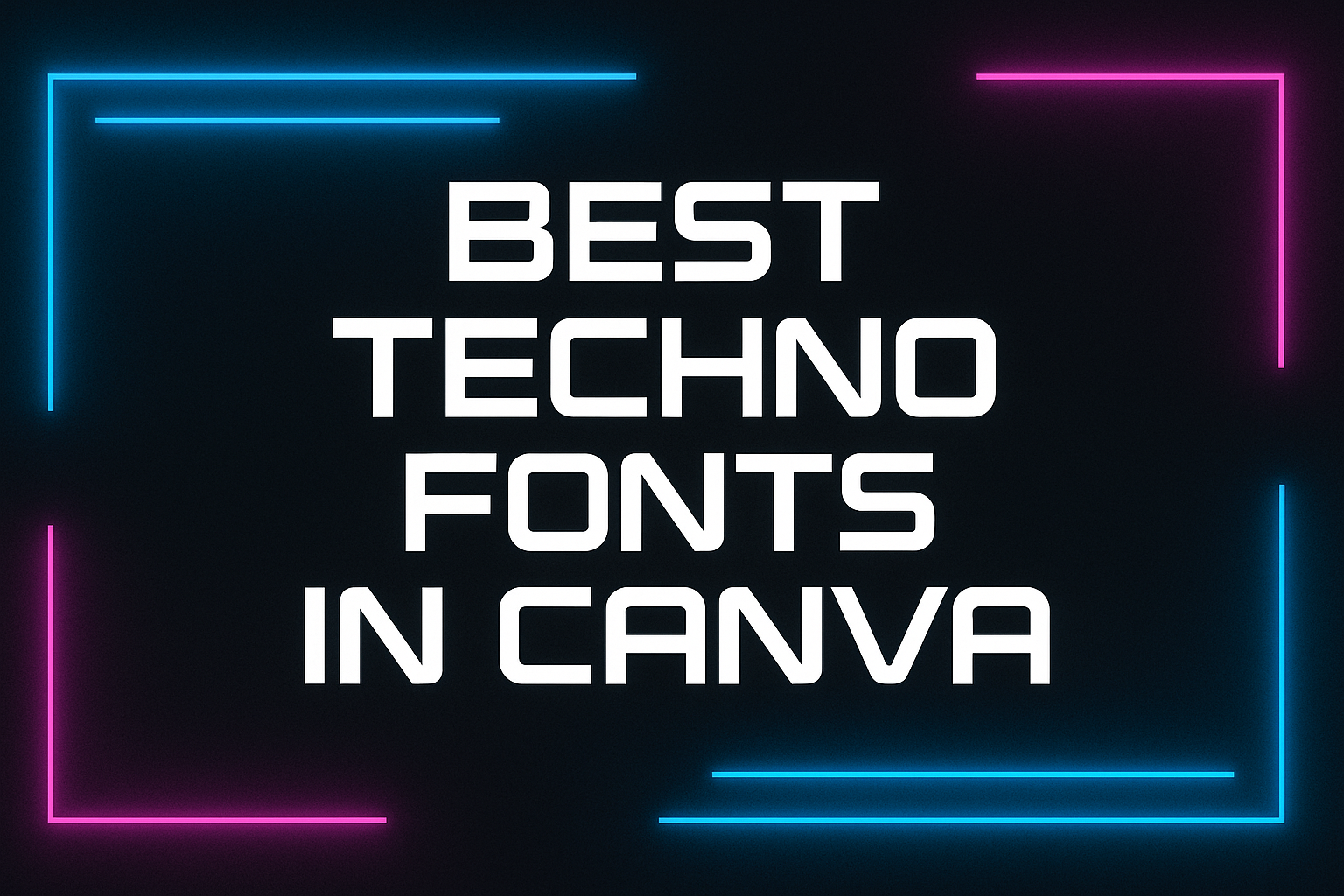
Techno fonts are essential for anyone looking to create modern and stylish designs in Canva. These fonts often mix sharp lines with futuristic elements, providing a clean yet advanced look that is perfect for tech-related projects.
Blanka, known for its minimalist design and geometric touch, is a top choice for its clarity and versatility, especially in branding and web design.
Luciana stands out with its monospaced style, showcasing elegant strokes that add a dynamic feel. It’s perfect for those wanting to blend a touch of sophistication with modern design.
Adriana offers a unique twist with its script-like characters, combining elegance with future-forward aesthetics. These fonts bring a new level of creativity to any designer’s toolkit.
For sci-fi enthusiasts and tech lovers alike, incorporating these fonts can turn ordinary visuals into compelling works of art. The right font choice can transform everything from logos to editorial content, providing both readability and a modern edge.
By exploring these fonts in Canva, creators can easily add a futuristic touch to their projects.
Understanding Canva’s Font Library
Canva’s font library is a treasure trove of typography options that cater to various design needs. It offers a wide array of styles, from modern sans-serif to decorative script fonts.
The Role of Typography in Design
Typography is a core component of any design, affecting how information is perceived. In Canva, fonts add character and set the tone of your project. They influence readability and audience engagement.
For example, a bold, futuristic font might work well for tech-related projects, while a handwritten script could add warmth to invitations.
Choosing fonts wisely is essential. Blending fonts, like pairing a sans-serif with a serif, can create visual harmony. Canva’s library supports these combinations, enabling designers to create balanced, appealing visuals.
The right font choice brings unity and coherence to any given project.
An Overview of Font Categories
Canva organizes fonts into categories to make selection easier.
Sans-serif fonts, known for their clean lines, are great for modern and minimalistic designs. Serif fonts bring a classic touch and are ideal for formal content like reports.
Script fonts mimic handwriting, adding elegance to invitations or personal notes. Meanwhile, display fonts are bold and unique, crafted to grab attention, making them suitable for headlines.
Another category is techno fonts, which are popular for digital and futuristic designs. With options like Blanka and Mokoto Glitch, they cater to dynamic and modern aesthetics.
Criteria for Choosing Techno Fonts
When selecting techno fonts for a project, key factors to consider include readability and how well they fit with other design elements.
Readability and Legibility
A font’s readability is crucial in ensuring that the text is easy to understand at a glance. Techno fonts often have unique shapes and structures, making legibility an important factor. The characters must remain easily distinguishable, even when used in small sizes or from a distance.
Checking how the font appears across different devices and platforms can help determine its readability.
Maintaining a clean and uncluttered look is helpful for legibility. This can be achieved by avoiding overly intricate details that may confuse the reader. While techno fonts are inherently futuristic and stylized, it’s vital to strike a balance between edgy design and text usability.
Compatibility with Design Elements
Choosing techno fonts that blend well with other design aspects is essential for a cohesive look. The font should harmonize with the color scheme, images, and overall theme of the design.
A font that contrasts sharply with other elements can be distracting. Designers often look for fonts that complement the visuals and support the design’s purpose.
Some techno fonts are versatile and work well in various contexts, such as web design, branding, or advertising.
It’s important to test how they interact with different design elements. Designers might use tools like Canvas’s font options to experiment with typography in various settings and ensure everything fits together smoothly.
Top Techno Fonts in Canva
Canva offers a variety of techno fonts for different design needs. From clean and neoteric styles to more bold and impactful options, there are plenty of choices to explore. The following sections cover some of the top techno fonts in each of these categories.
Neoteric and Clean Fonts
Neoteric techno fonts in Canva provide a sleek and modern vibe.
Blanka is a great example with its clean lines and geometric design, creating a minimalist and futuristic look. This font is perfect for website design and tech branding because of its readability and modern feel.
Another choice is Luciana. Its monospaced design and light strokes add a feminine touch, making it ideal for projects needing a softer yet tech-savvy look.
Galactus also stands out for its elegance, offering a refined look suitable for digital content that demands simplicity and style.
Bold and Impactful Selections
Bold fonts make a strong statement and grab attention.
Mokoto Glitch presents itself as a daring option with its digital effects that suggest speed and motion. Such fonts are great for event posters or gaming graphics where striking visuals are key.
Another impactful font is Blackpast Futuristic, which brings a touch of mystery to its bold design. This font works well for sci-fi and tech-themed projects. With its rich and daring style, it commands attention whether used for headers or logos.
Moreover, there is Nebula, known for its unique take on boldness. With a futuristic flair, it injects energy into any design, making it a solid choice for edgy and creative projects.
Futuristic and Abstract Picks
Futuristic fonts push boundaries with inventive designs.
Auranouva catches the eye with its techno-inspired style, perfect for innovative startups or forward-thinking brands. It blends sharp angles and curves, creating a one-of-a-kind look.
Invasible Modern Typeface embraces an abstract touch, combining elegance with an unexpected twist. This font suits designs that seek to intrigue and captivate audiences with its unconventional form.
Additionally, Galactus can also offer an abstract angle, fusing elements of sci-fi with a techno aesthetic. This makes it ideal for captivating those who love imaginative and futuristic themes in their digital projects.
How to Access and Use Techno Fonts in Canva
Accessing and using techno fonts in Canva is easy and can make your design projects stand out. Learn how to explore the Canva editor and customize font choices to suit your creative needs.
Navigating the Canva Editor
In the Canva editor, finding techno fonts involves several simple steps.
First, open a new design project or an existing one. On the left-hand menu, look for the “Text” option and click it. This brings up a variety of text options and a list of available fonts.
To find techno fonts specifically, use the search bar within the font menu. Type keywords like “techno” or “futuristic” to filter the results.
After selecting a font, you can easily adjust it by clicking on the text box and using the top menu settings. These settings allow you to change the font size, color, and alignment, giving you control to match your design’s theme.
The straightforward layout ensures that even beginners can navigate through font options without hassle.
Customizing Your Font Choices
Once a techno font is selected, customization can further enhance its impact.
Canva provides tools to change not only the appearance, but also the style of your font.
Experiment with font weights to make your text bold or italicize for emphasis. You can also adjust letter spacing and line height for better readability and aesthetic appeal.
Adding effects like shadows or gradients can transform the look of your text, making it pop against the background.
These customizations ensure that your design looks professional and unique. Canva’s user-friendly interface allows quick modifications, so designers can spend more time focusing on creativity rather than technical details.
Design Tips for Techno Fonts
When working with techno fonts, it’s important to think about layout balance, color choices, and how to pair fonts so they complement each other. Each part of the design plays a role in making the fonts stand out and look their best.
Balancing Your Layout
Balancing your layout is key to making techno fonts shine. These fonts often have bold, futuristic designs that can dominate a page if not placed thoughtfully.
Use white space to draw attention to important elements and prevent the design from feeling cluttered.
Consider alternating font sizes to create hierarchy. For example, use a large techno font for headings and a smaller, more readable font for body text. This contrast gives clarity to your design.
Grid layouts can help maintain order. They make sure that elements align well, providing a structured look that complements the sharp lines often found in techno fonts.
Color Considerations
Choosing the right colors can make or break your techno font design.
Consider using monochromatic palettes or complementary colors that enhance the futuristic feel. Bright, neon colors or metallic shades are popular choices that fit well with the techno style.
It’s important to maintain good contrast between the text and the background. This not only ensures readability but also highlights the text effectively. For example, a bright cyan font on a dark background can create a striking visual impression.
Consider the audience and purpose of your design to select colors that convey the right mood. For a tech-themed event, opt for vibrant and energetic colors. For something more elegant, metallic and cool tones can add sophistication.
Pairing Fonts Effectively
Pairing fonts effectively means choosing fonts that complement each other without competing for attention. Techno fonts are already attention-grabbing, so the secondary font should be simple.
Sans-serif fonts are a great match because they keep the focus on the techno font’s unique features.
Try pairing bold techno fonts with lighter, simpler fonts for body text. This contrast helps maintain readability while showcasing the main font.
Think about the tone of the project. If your project aims for a futuristic look, the secondary font should be modern without being flashy. This ensures that all elements work together seamlessly.
Incorporating Branding with Techno Fonts
Techno fonts add a modern touch to any design, making them a great choice for branding. They can convey innovation and forward-thinking, crucial for tech companies or futuristic brands.
Blanka is a popular techno font that is both clean and minimalist. Its geometric design works well for digital identities, making it suitable for branding projects.
Using different weights of a techno font like bold or light helps to highlight different parts of the message. This approach is effective in creating visual interest and focusing attention where needed.
A list of possible ways to incorporate techno fonts in branding includes:
- Logo Design: Establish an identity with a unique and modern logo.
- Business Cards: Stand out with sleek, techno-inspired contact details.
- Website Headers: Grab attention with stylish headings.
Techno fonts can also be a good fit in various industries. For instance, in the gaming world, they highlight excitement and technology. Futuristic Canva fonts enhance the sci-fi theme commonly seen in creative projects.
Choosing the right font is crucial. As noted on Goofy Designer, adapting a font to match the project’s theme ensures the design looks coherent and professional. Brands wanting a digital edge should consider the message their font choice communicates.
Examples of Successful Designs Using Techno Fonts
Techno fonts bring a modern and edgy feel to designs.
One successful example is using these fonts in logo design. Brands looking for a futuristic image often choose techno styles for their logos. This can give a sleek and innovative look that stands out.
For website headers, techno fonts are popular to attract visitors. They add a high-tech vibe that matches well with digital themes.
It’s common to see these fonts used in tech or sci-fi related sites.
Event posters also benefit from techno fonts. A music festival, for example, might use a bold, geometric font to create a sense of excitement and movement. This makes the event feel modern and appealing to a younger audience.
Another area where techno fonts shine is in advertisements for tech products. They can emphasize the cutting-edge features of gadgets like smartphones or laptops. A well-chosen font can make the product seem more futuristic and desirable.
Canva’s collection of techno fonts includes geometric and minimalist designs, which have been successfully used in multiple branding projects.
Using these fonts thoughtfully can enhance a brand’s digital identity and make it memorable.
For brands aiming to appear modern and innovative, techno fonts are a great choice. They successfully blend style with function, making them suitable for a variety of design needs.
Licensing and Font Attribution in Canva
For anyone using fonts on Canva, understanding licensing is key.
Canva offers both Free and Pro Content licenses. These licenses cover elements like photos, icons, videos, and fonts.
When using Free Content, there are fewer restrictions, making it more accessible for general users.
Pro Content provides additional features but requires a paid subscription. Users accessing Pro Content without a subscription will notice a watermark. To remove this, users need to purchase a license.